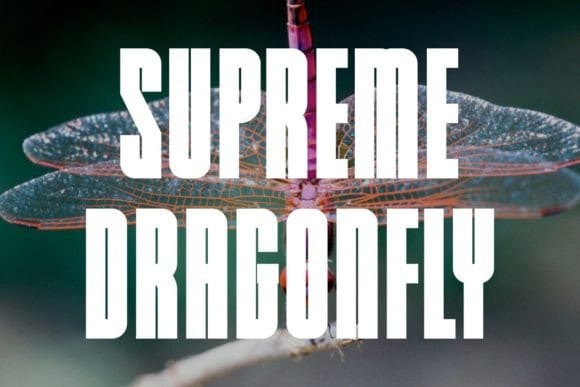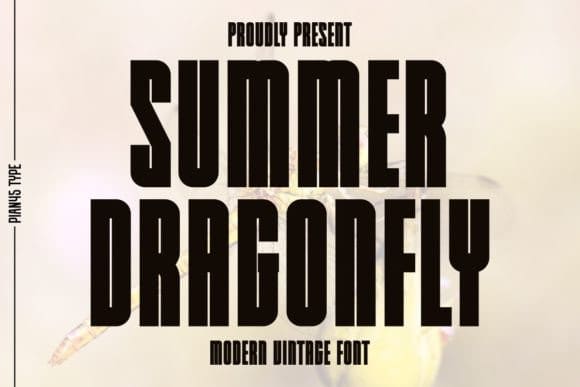
Summer Dragonfly Font
Summer Dragonfly Font is a modern vintage and clean condensed sans serif font that perfect for a wide range of design projects. This font adds a touch of elegance and sophistication to any design, Perfect for stylish quotes, posters, backgrounds, trendy t-shirts, mugs, tote bags and pillows.